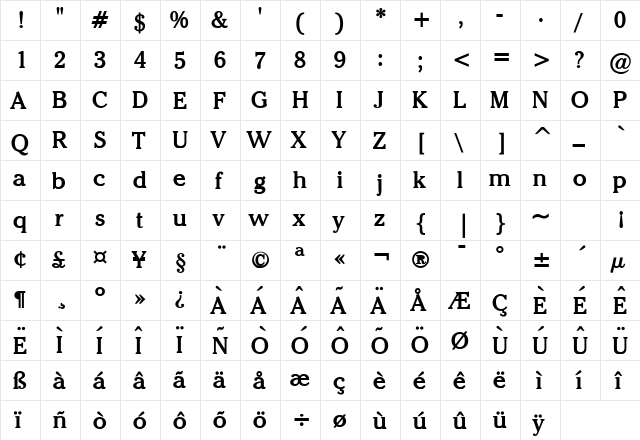
Chelsey Bold
Design Context for Chelsey Typeface
Chelsey offers clean, dependable letterforms without strong stylistic allegiance, making it a practical choice for designers who need flexibility. The heavy weight commands attention and anchors typographic hierarchies.
Pro Tip: Pair Chelsey with a font of contrasting weight or personality to build a more expressive typographic hierarchy.